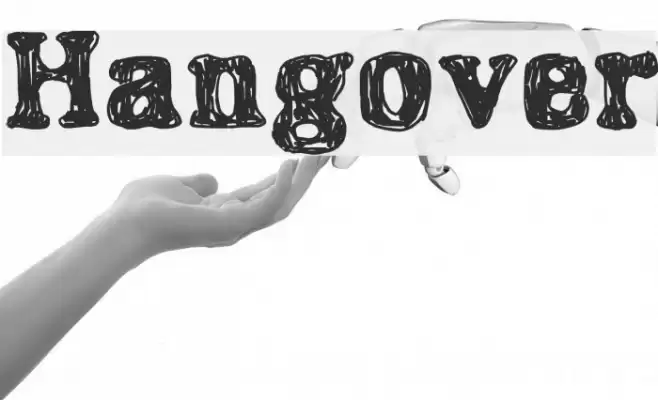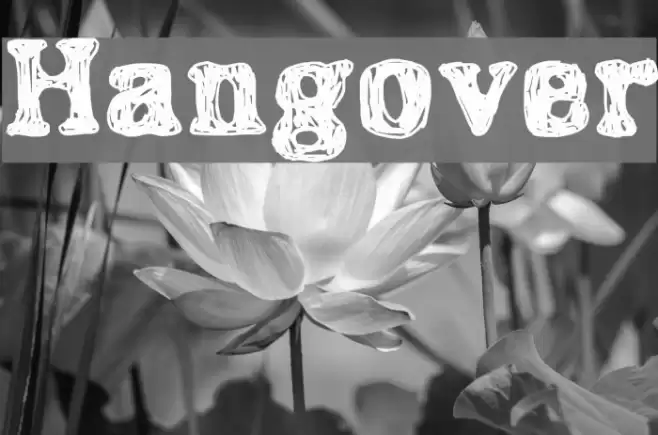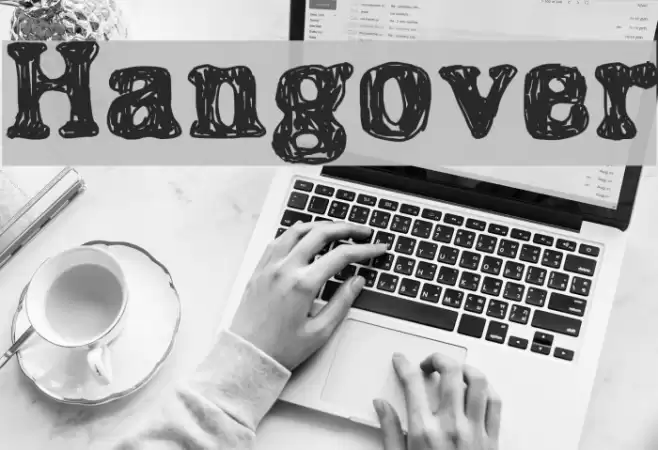
Hangover Font
Hangover Description
This font features a bold, hand-drawn style with a playful and artistic flair. The characters are filled with intricate, scribbled patterns that give them a textured, almost doodle-like appearance. Each letter and number is distinct, with varying thicknesses and irregular edges, contributing to a dynamic and lively look. The font maintains a consistent height across characters, ensuring readability while still embracing its quirky design. The special characters follow the same artistic theme, adding to the font's cohesive and unique aesthetic.
A bold, hand-drawn font with a playful, textured design from Uncategorized fonts.